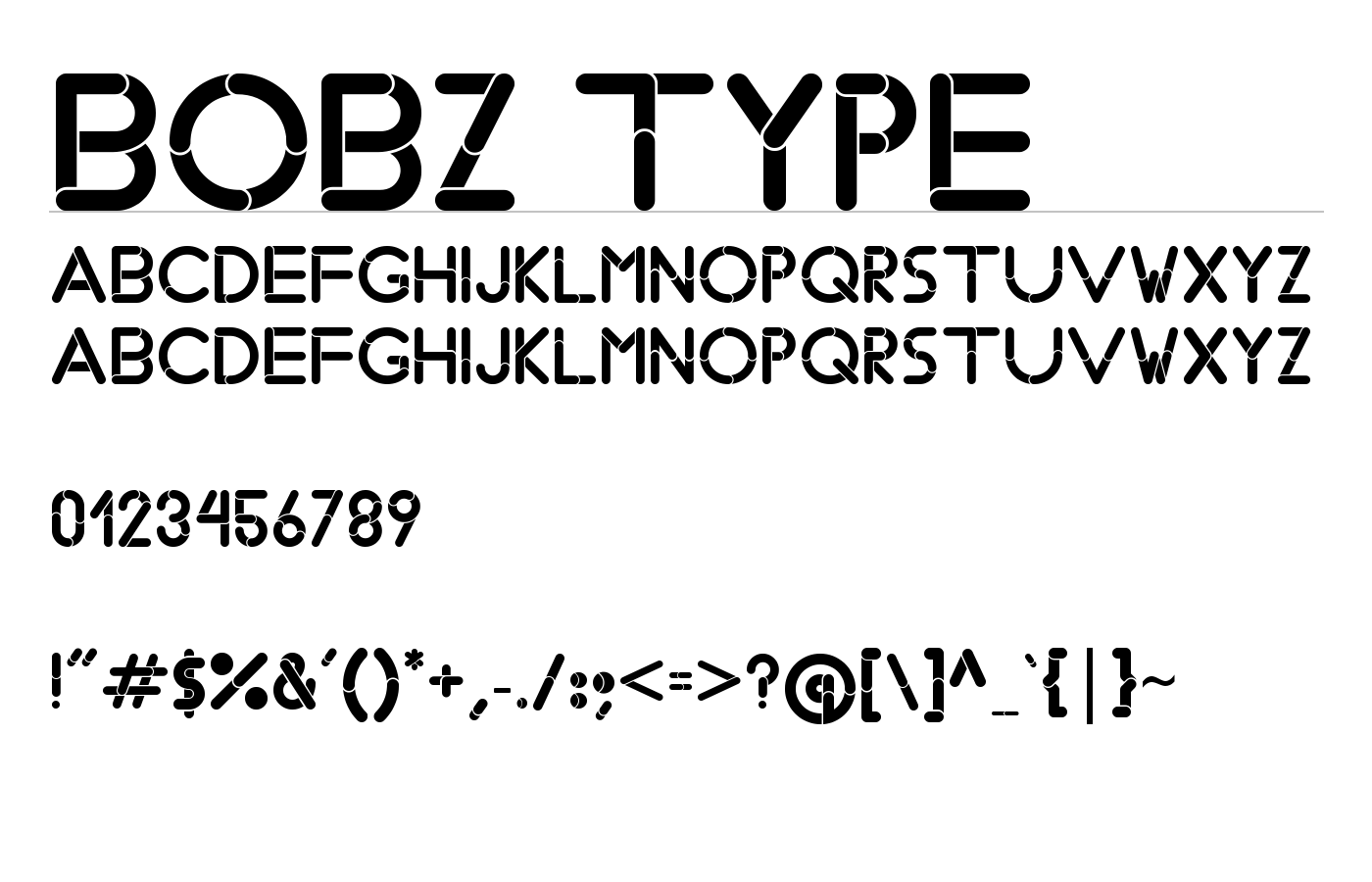
Bobz Type is a bold, modern sans serif font with a unique segmented design that creates a futuristic and tech-inspired look. Its rounded edges combined with sharp, almost mechanical breaks in each character give it a playful yet structured personality, making it ideal for eye-catching headlines, logos, and branding in creative or tech-forward industries. The font’s clear geometric shapes and consistent weight ensure strong readability while its distinctive style adds a contemporary, dynamic vibe.
Bobz Type Font